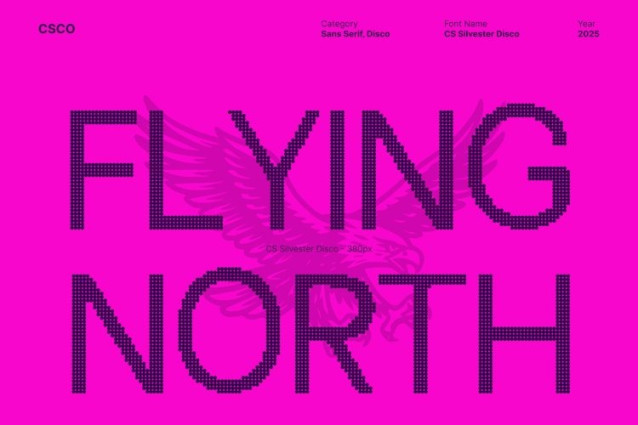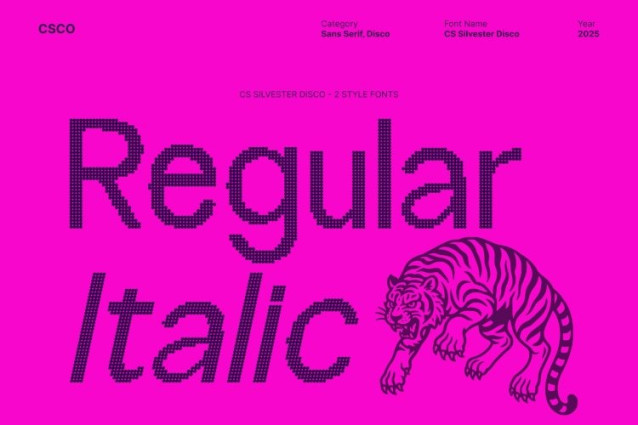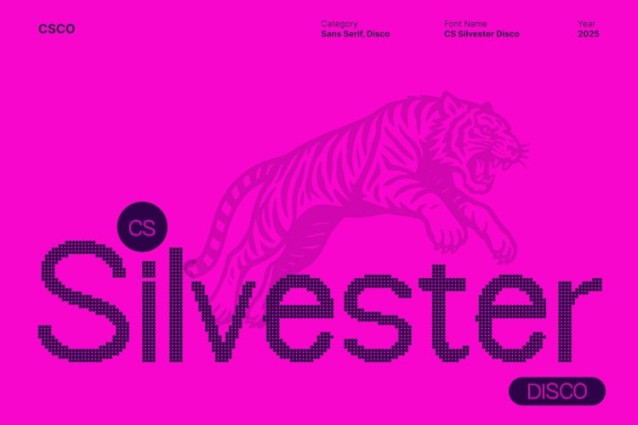
CS Silvester Disco Regular Font
CS Silvester Disco Regular Font This is a sleek and modern sans serif font crafted for designers who value clarity, style, and a strong visual presence. Its clean lines and professional structure make it a reliable choice for all kinds of contemporary layouts. This typeface offers a polished look from the very first glance, ensuring your message comes across with precision and sophistication.
Glamorous Disco Sparkle for Eye-Catching Appeal
What truly sets this font apart is its signature disco sparkle effect. The shimmering accents add a touch of glam, making each letter feel vibrant, lively, and ready to shine. This unique decorative touch elevates the font from simple modernity to stylish elegance perfect for designs that want a hint of celebration, luxury, or playful brilliance.
Perfect for Editorials, Logos, and Branding
With its clean foundation and sparkling overlay, this font excels in editorial layouts, fashion branding, lifestyle campaigns, and modern logo work. It brings together professionalism and creativity, making it ideal for titles, identity systems, packaging, and promotional visuals.
A Versatile Choice for Trend-Driven Designers
This font strikes the perfect balance between minimalism and decorative flair. Its refined sans serif skeleton ensures high readability, while the disco sparkle effect introduces a bold personality that sets your design apart.